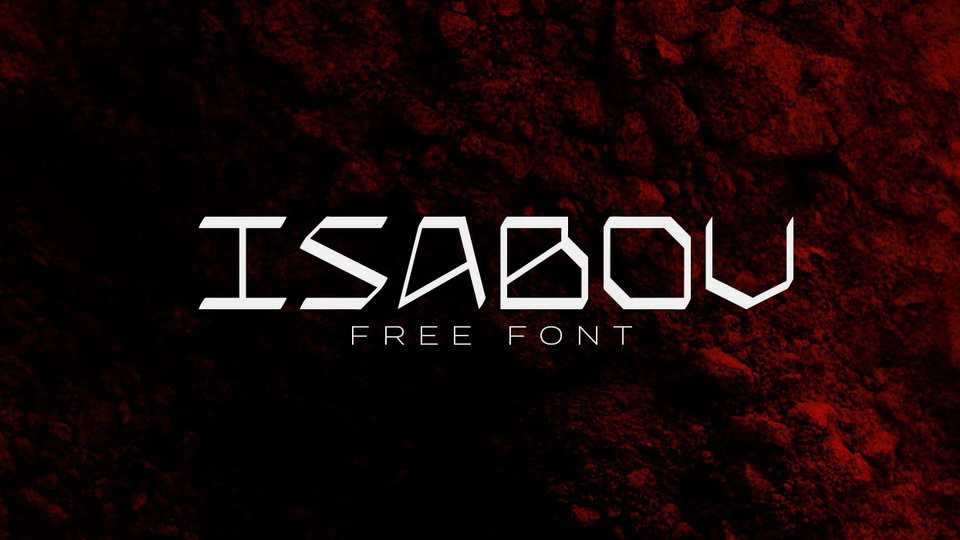
Isabov Font Family › Fontesk
Download Isabov typeface, a display font family in three different weights with additional variable glyphs. The whole font is based on a futuristic bold look.
Designer: Luis H. J. Rapp